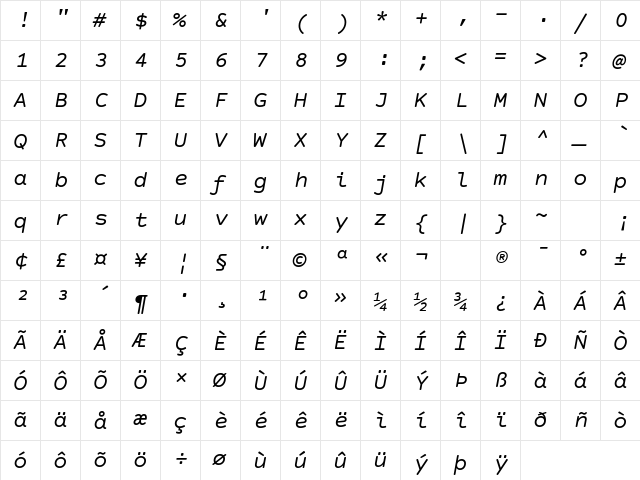
Courier Prime Sans Italic Font Preview
| Foundry | Quote-Unquote Apps |
| Designer | Alan Dague-Greene |
Design Context for Courier Prime Sans Typeface
Courier Prime Sans brings the precise, column-aligned rhythm of monospaced typography to designs that value technical clarity and systematic order. The slanted form adds forward momentum and visual energy.
Pro Tip: Use Courier Prime Sans with slightly increased line-height for extended reading — fixed-width spacing can feel dense in longer passages without extra breathing room.